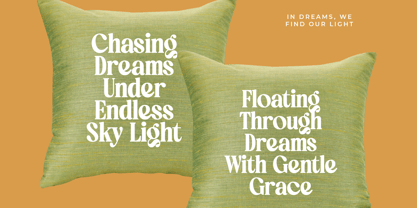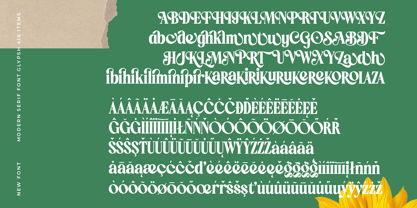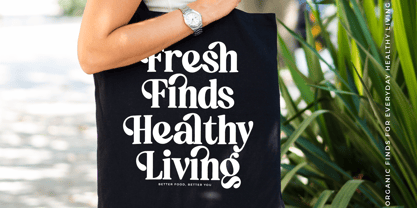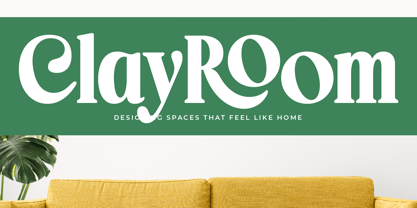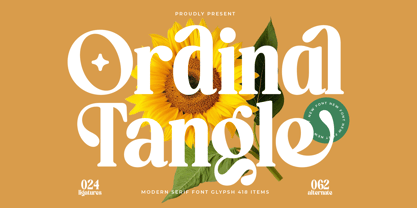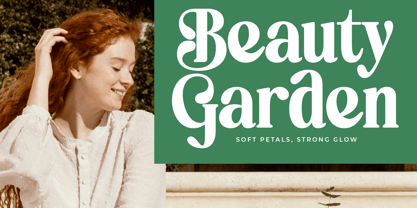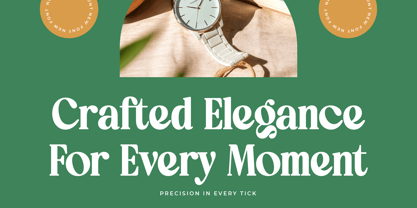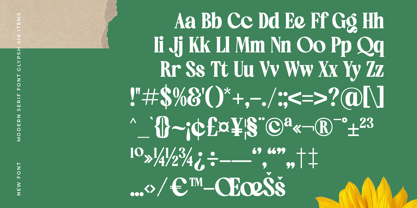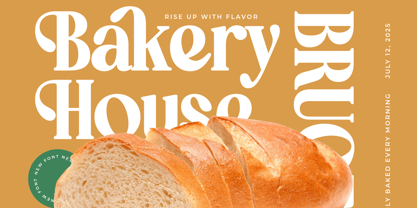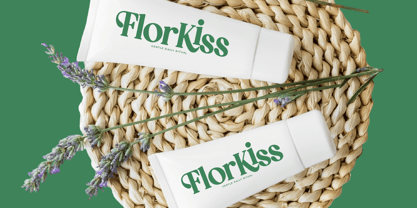
Ordinal Tangle
The Ordinal Tangle Font Family was designed by Heru Utama Putra and published by Timelesstype Studio. Ordinal Tangle contains 2 styles and family package options.
Ordinal Tangle - Modern Serif Font , from Timelesstype, Suitable for any projects such as: logos, branding projects, homeware designs, product packaging, mugs, quotes, posters, shopping bags, t-shirts, book covers, name card, invitation cards, greeting cards, label, photography, watermark, special events, and all your other luxury and beautiful projects that need a Luxury Serif taste.